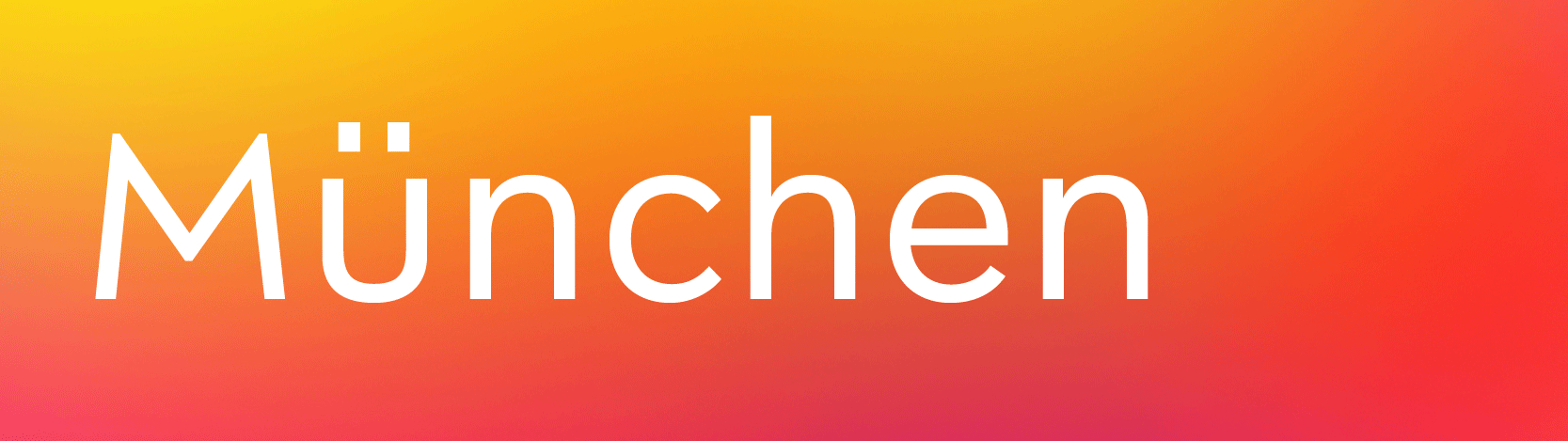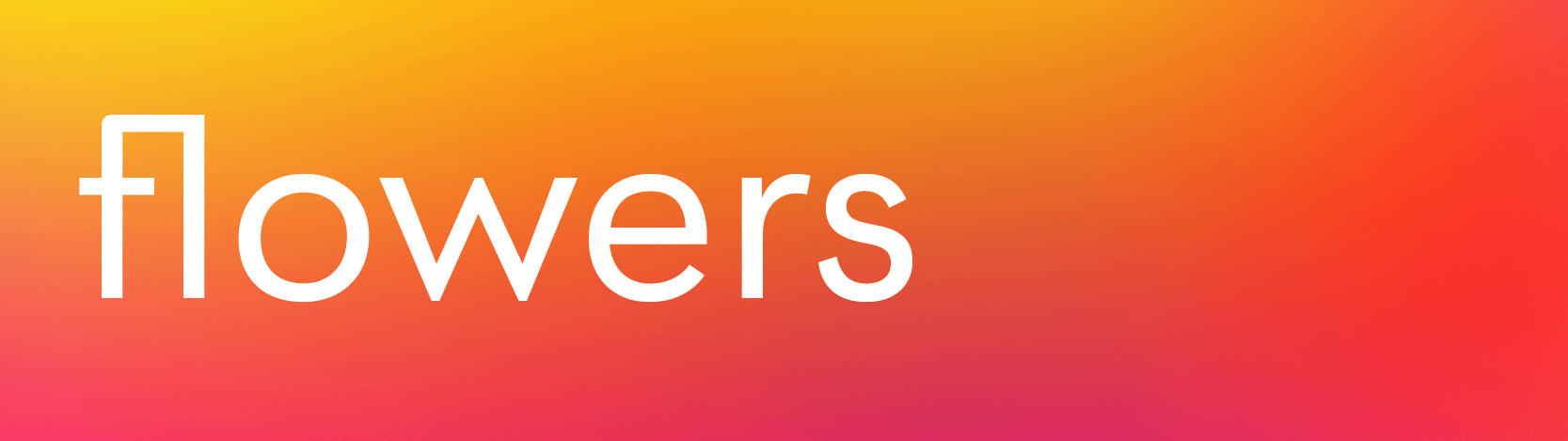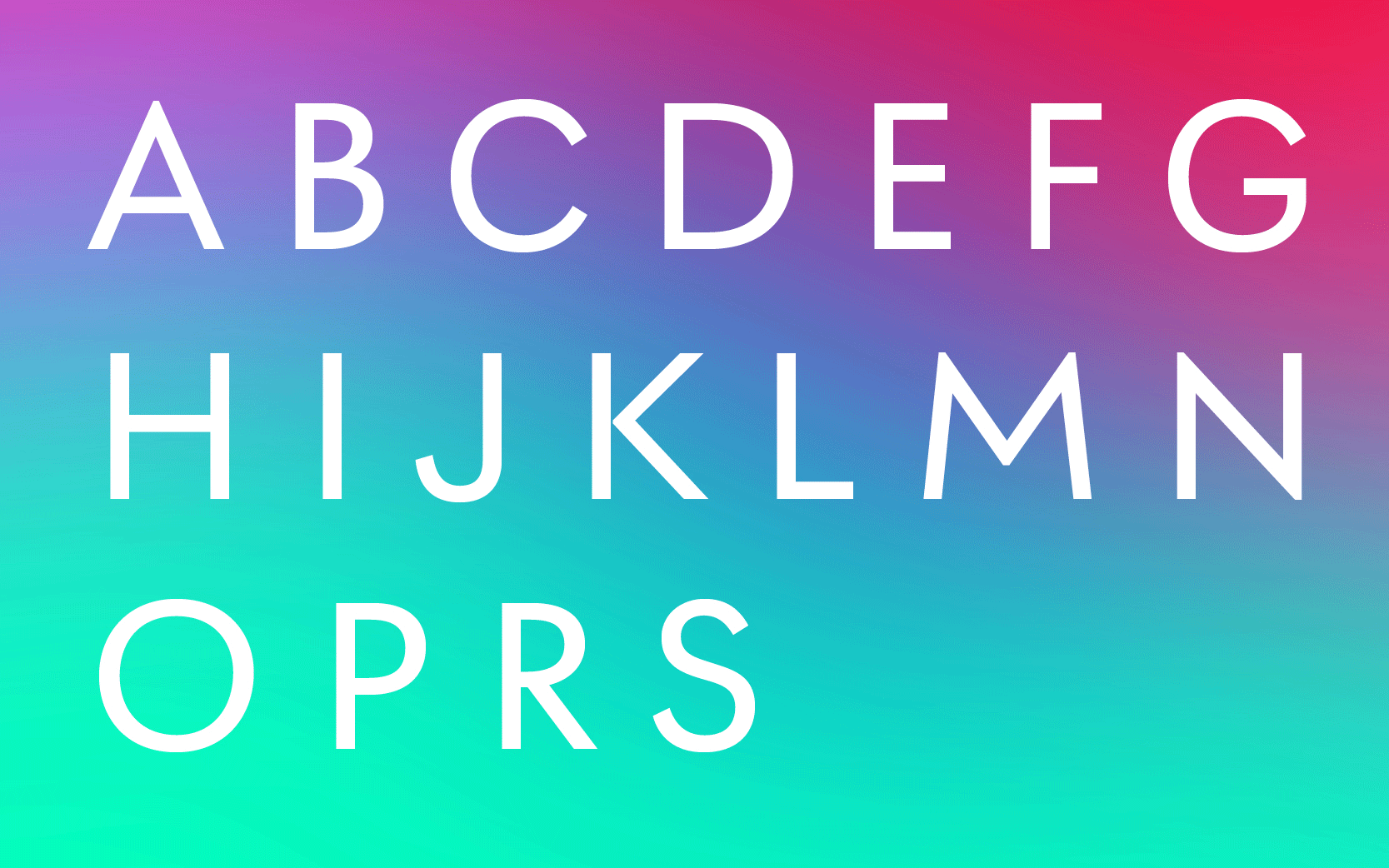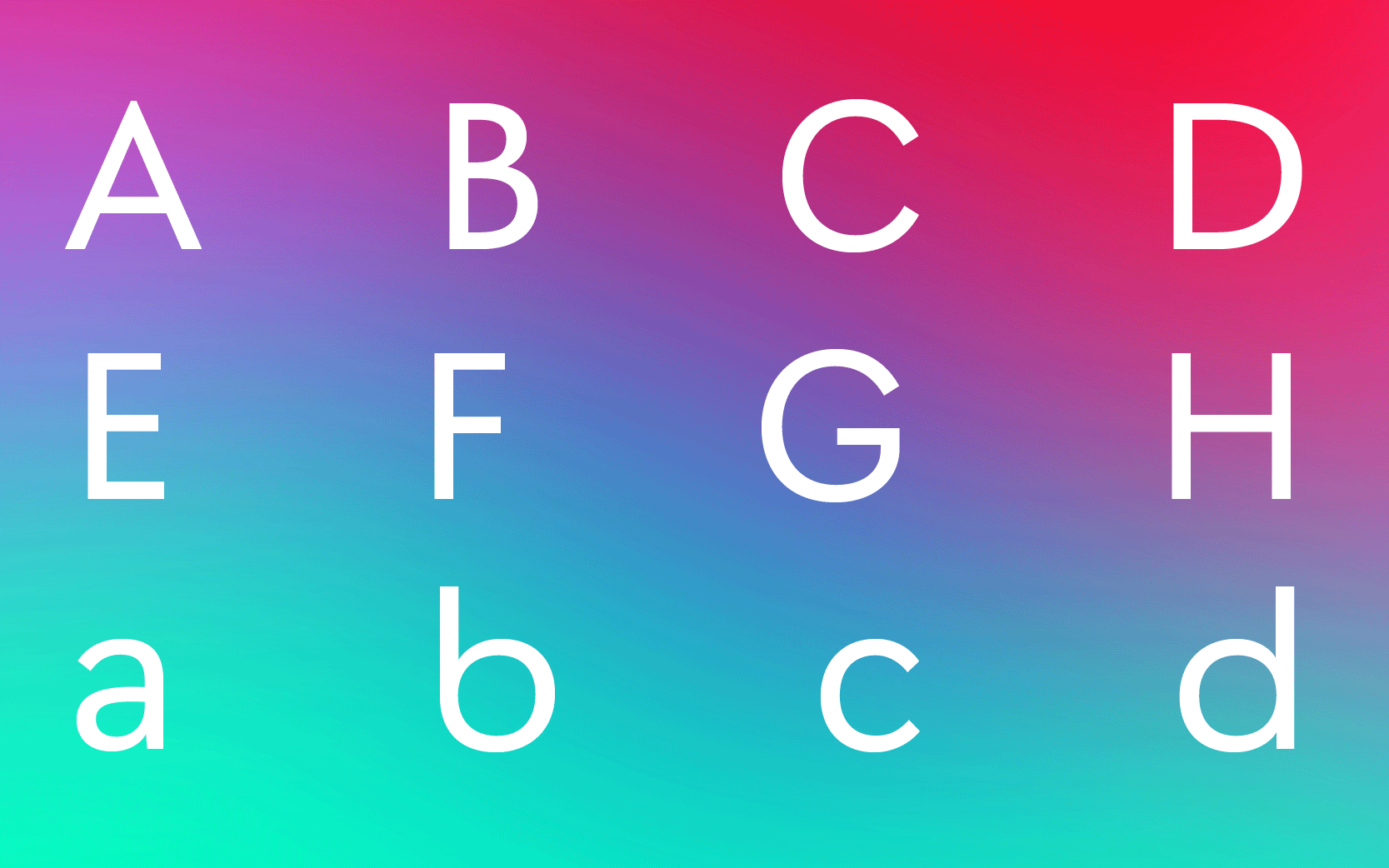
Postea: a lyrical take on geometric sans serifs
This was one of those “all hands on deck” seasons for us as we put the finishing touches on this family, and now we’re happy to introduce you to Postea. Read all about our charismatic and distinct geometric sans, its origins, and how it should be used.
Postea’s background lowdown
The story of Postea starts with Veronika Burian sometime in Spring 2020 during Covid lockdown. In Germany, outdoor sports and activities were still allowed and going for a walk was a highlight of her day. One venture led Veronika to discover an unfamiliar part of Munich.
Here in the middle of a large and usually busy public square stands a post office building from the 1920s in the architectural style of “Neue Sachlichkeit”, commonly known as Bauhaus. The clean, simple, and slightly quirky Deutsche Post signage lettering caught her eye, with its longish extenders and varied letter widths, especially the bottom-heavy ‘s’.
During further explorations into the realm of the geometric sans, Veronika decided to develop a type family that would reside somewhere between our stark headliner Catalpa and the calmer geometric–humanist hybrid sans Soleil by Wolfgang Homola.
Geometric Pedigree
It is no surprise that Germany might inspire a new geometric sans serif design; this is, after all, where everything began in the early twentieth century. During a period marked by a reaction against the industrial context that shaped society, the revolutionary Bauhaus instead prioritized an ergonomic unity of function and form in art, design, and architecture.
The movement aimed for radically simplified forms, where rationality and functionality dominated the individual artistic drive. The Universal Alphabet proposed by Herbert Bayer in 1925, even if it would not become a font, opened the door for a series of designs that became incredibly popular in a very short period of time. The spread of Bauhaus design virtues was so rapid that it was cemented even while blackletter typefaces were still widespread in Germany. Think of that — two wildly distinct styles in simultaneous use, and both immensely popular!
Jakob Erbar’s Erbar Grotesk (1926) was followed by Paul Renner’s Futura, which became an immediate commercial success — and still remains so. In 1928 Jan Tschichold published his treatise Die Neue Typographie (The New Typography), which encapsulated the ideas behind typographic modernism. That very same year Rudolf Koch published Kabel, a design showing Art Deco influences, and the Berthold type foundry released Berthold Grotesk.
Kabel by Rudolf Koch, Klingspor foundry from 1927 onwards. Photograph taken from the book Krásné písmo ve vývoji latinky (František Muzika, 1963).
Futura, designed by Paul Renner and released by the Bauer foundry. Photograph taken from the book Krásné písmo ve vývoji latinky (František Muzika, 1963).
Postea: beautiful, useful & distinct
Postea is a rather small type family, especially when compared with TypeTogether’s latest releases, Lektorat (27 styles) and Belarius (90 styles). But smaller, in this case, does not mean either simpler or less accomplished. The challenge is represented in the typographic goal of the new typeface: Postea is meant to have outstanding performance in a wide range of situations.
Postea’s possible uses are manifold, from branding, indoor signage, and posters, to photography and architecture magazines and books. In practice, this creates a couple scenarios that demand different levels of volume and tone with which the fonts must speak to the reader. Our goal was to address each requirement with a rather economic range of resources. In other words, the few weights we created do the job just right.
The intermediate weights of the Postea font family are intended for applications that demand high readability, and the extreme styles are geared to produce impact and recognition. Think of large titles and headings using a thin font weight. It would obviously need to be set tighter, so we baked this spacing into the family from the beginning. However, paragraph text should be set looser so this is also built into the family.
The game Postea continuously plays is to find a balance between the two extremes of readability and charisma, so we included a small amount of stylistic alternates that give designers the ability to easily tilt the scale one way or another.
If the design calls for a more restrained tone, stylistic set number 1 replaces five glyphs (‘M’, ‘b’, ‘f’, ‘t’, ‘u’) with alternate shapes that enhance legibility while attracting less attention to themselves. This is a feature that may be desired for body copy and signage, where typography should play an anonymous but functional role. On the other hand, stylistic sets 2 and 3 will change the shapes of ‘a’ and ‘y’ respectively, boosting the geometric appearance and overall tone of composed texts. This is ideal for branding, poster design, and large headlines.
Beginning with midcentury virtues, Postea is the rational response for text — a lyrical take on geometric sans serifs.
SS01: lowercase ‘f’ and ‘t’ become rounded, while ‘b’ and ‘u’ gain spurs and become more calligraphic.
SS01: the middle apex of uppercase ‘M’ shifted down to the baseline, and the ‘u’ becomes more humanistic.
SS02: one story ‘a’, more typical of the geometric sans genre.
SS03: the attention-grabbing straight lowercase ‘y’.
SS01: ligature ‘fl’ with and without ‘f’ alternate.
SS06: geometric shapes.
SS04: Bauhaus inspired geometric ornaments.
SS06: arrows show the way.